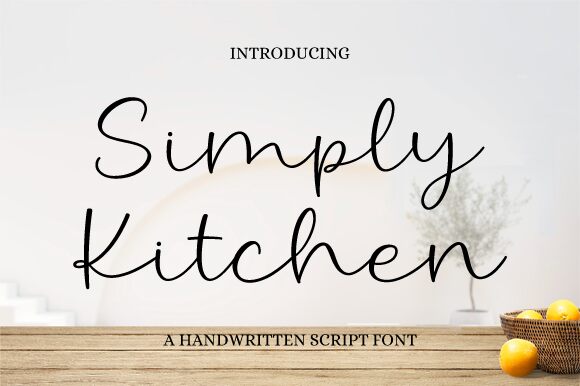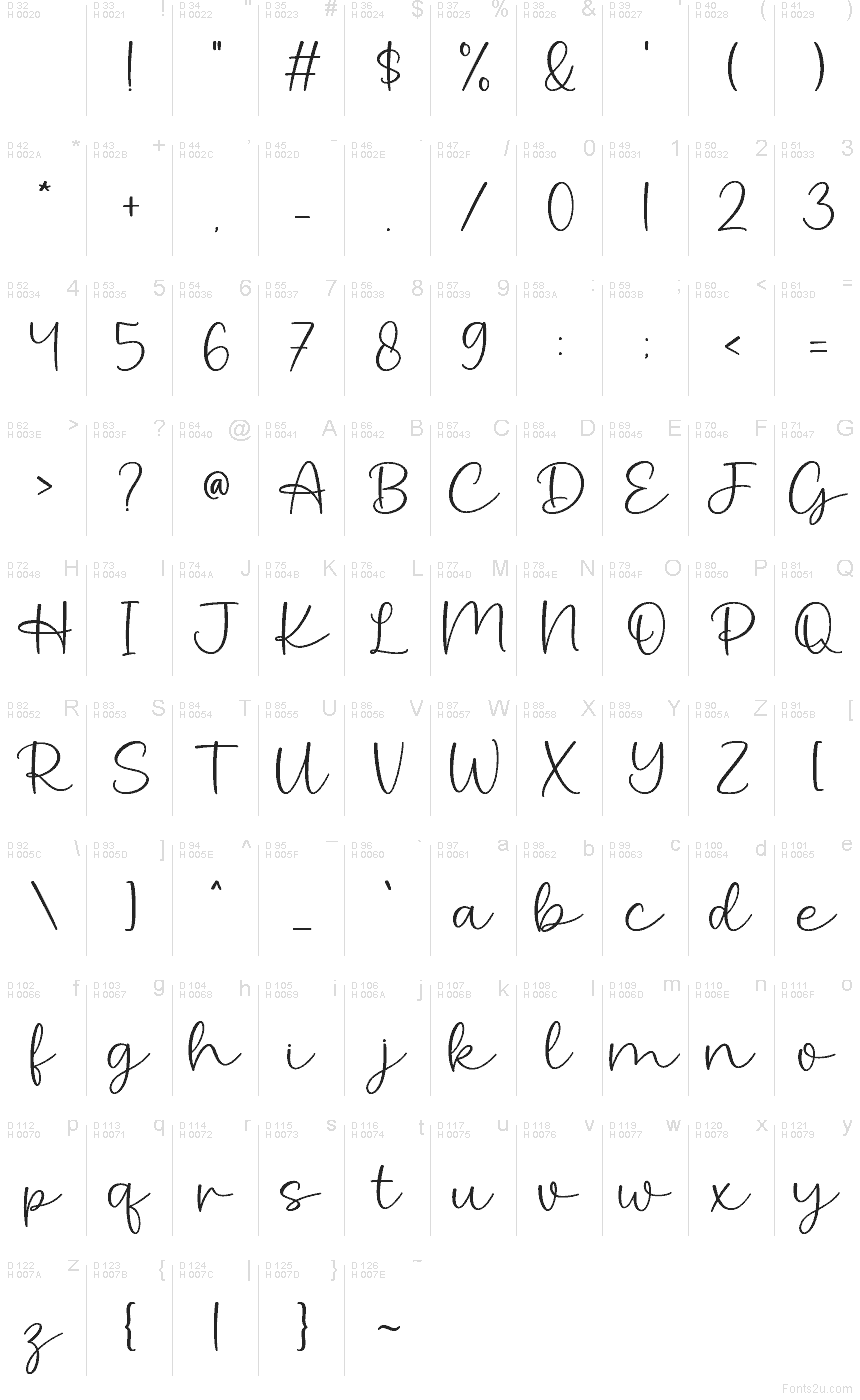
Simply Kitchen font by Aldi Raya Pradipta of Graphix Line Studio is a free handwritten font with a breezy, ink-on-paper charm. Its thin, clean strokes and relaxed rhythm feel like a quick note on a recipe card-casual, friendly, and slightly playful without getting messy. The generous spacing keeps it airy, so the words stay readable even when the letters dance a bit.
Using Simply Kitchen, you’ll get a warm, human touch on café menus, bakery packaging, recipe headers, cooking blogs, artisan labels, social posts, and simple brand marks. This free font also works beautifully for quote graphics and small shop signage when you give it room to breathe. Pair it with a calm sans (like a neutral geometric) for body text, and size Simply Kitchen up for titles so its delicate lines stay crisp.